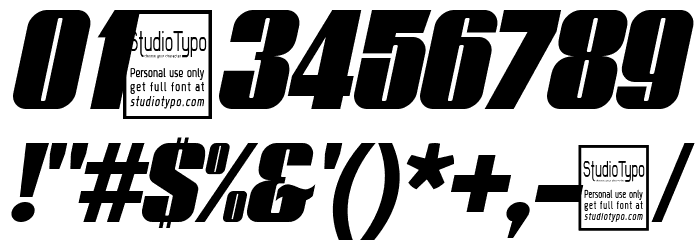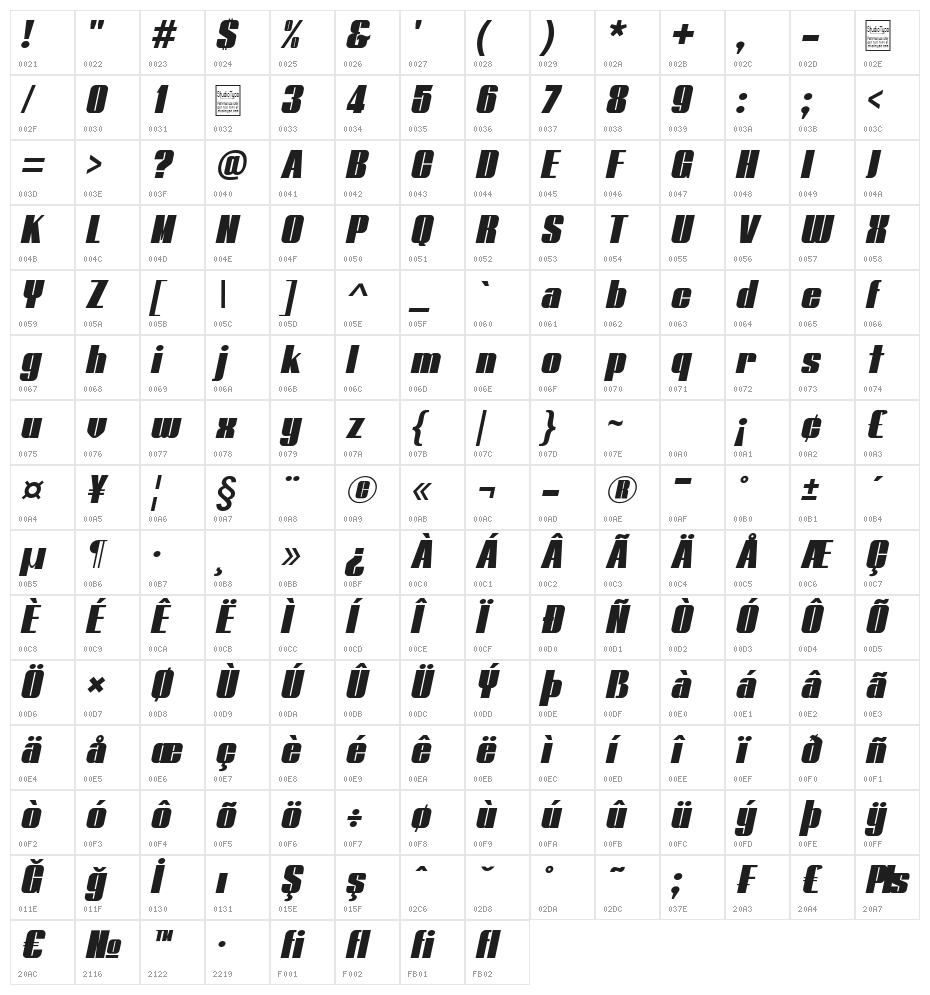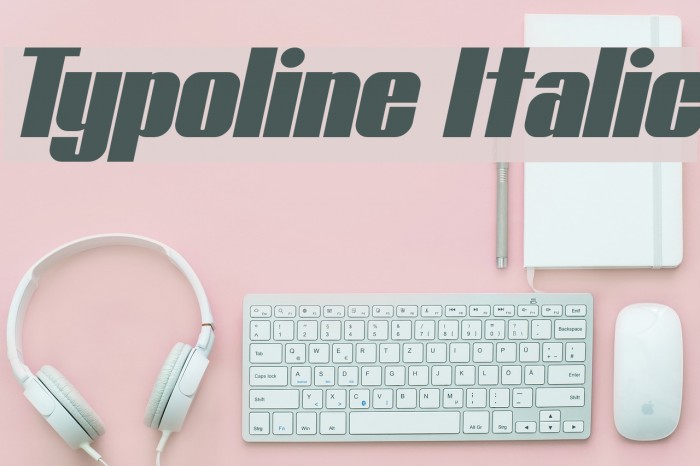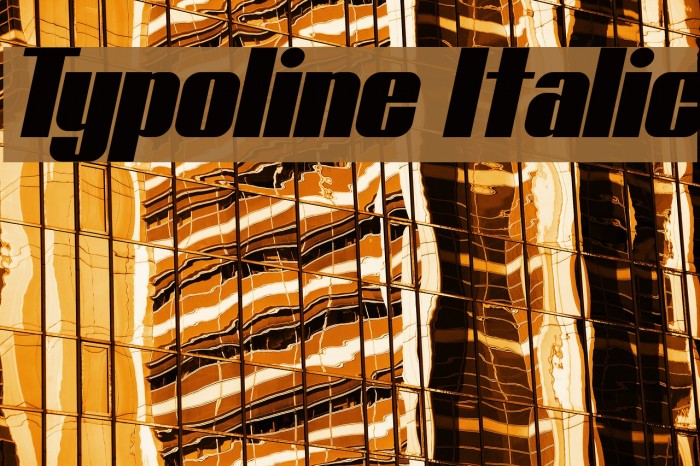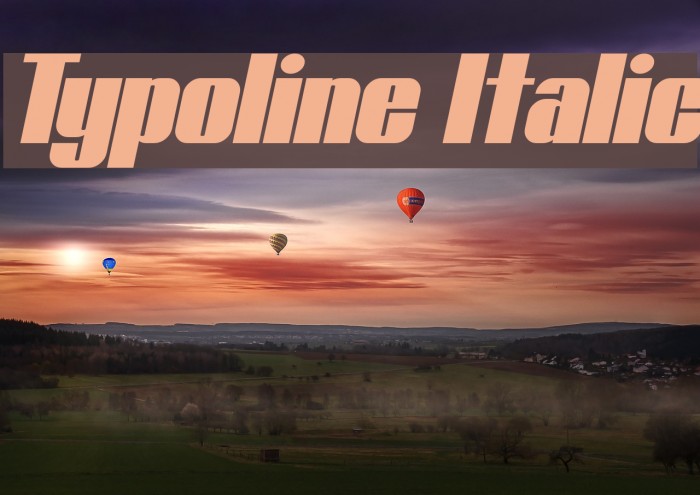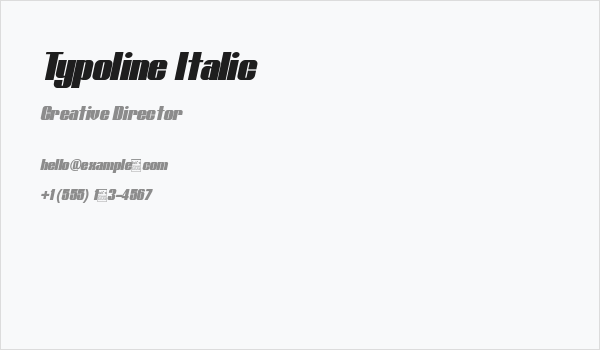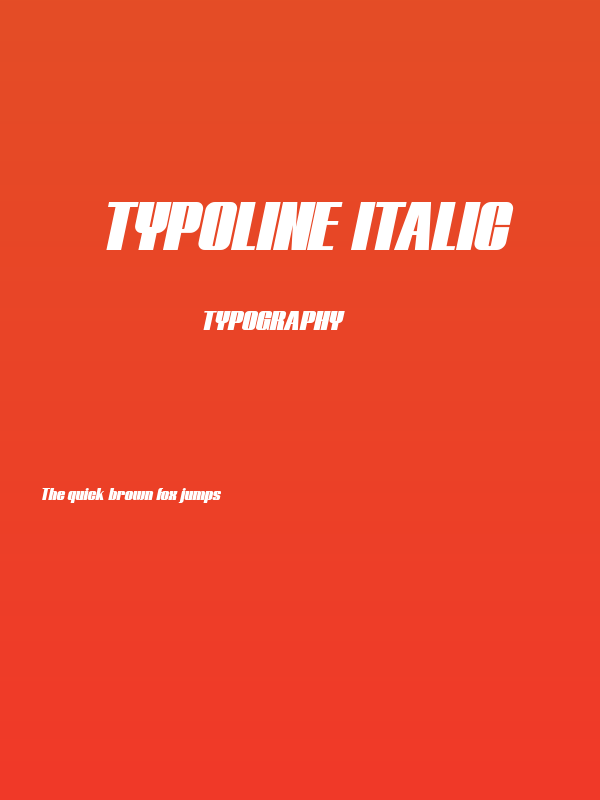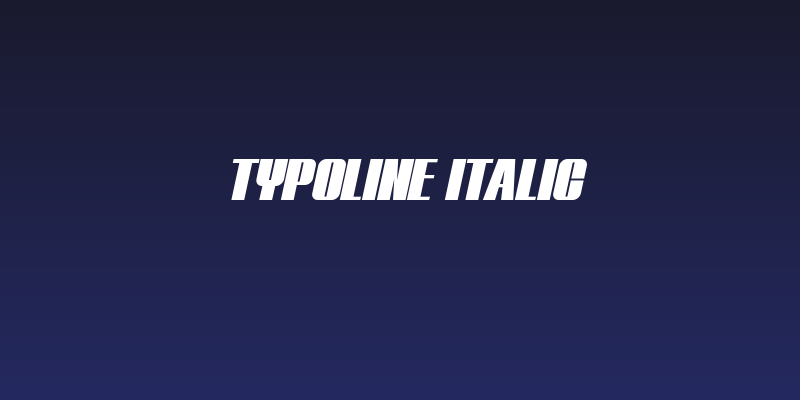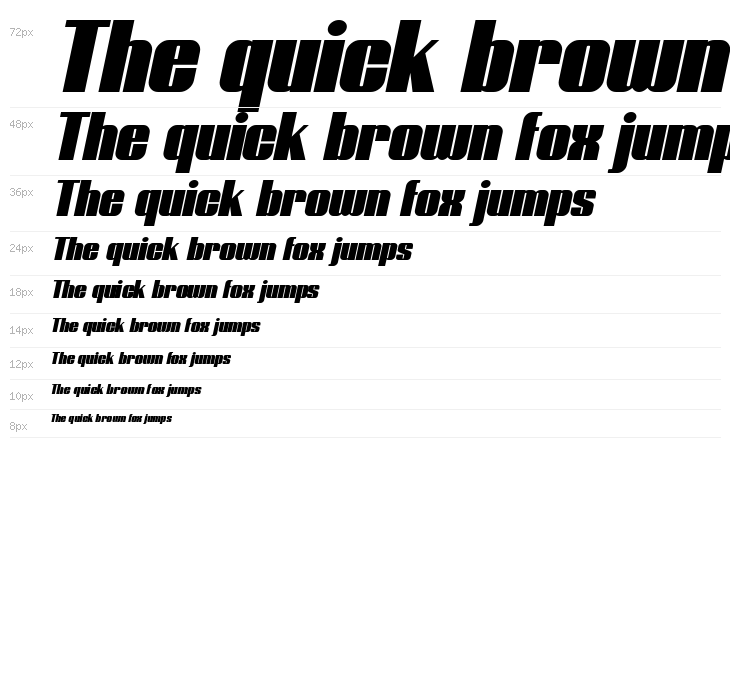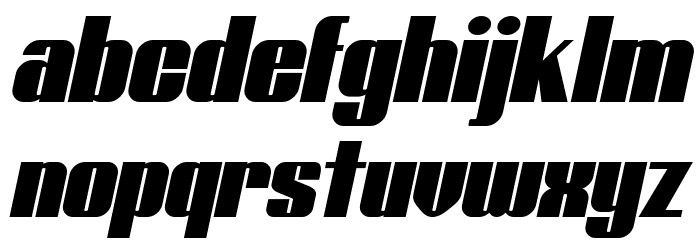
Typoline Italic Font
Typoline Italic Description
This font features a bold, italicized style with a strong presence. The characters are designed with a forward slant, giving a sense of motion and dynamism. The strokes are thick, providing a high contrast between the filled and empty spaces, which enhances readability and impact. The uppercase letters are tall and commanding, while the lowercase letters maintain a consistent style with slightly rounded edges. The numerals are bold and clear, matching the overall aesthetic. Special characters are included, maintaining the same bold and italicized characteristics, making this font versatile for various uses.
| Proposed Projects | Ideal for headlines, posters, branding, and any project requiring a strong, impactful typeface. |